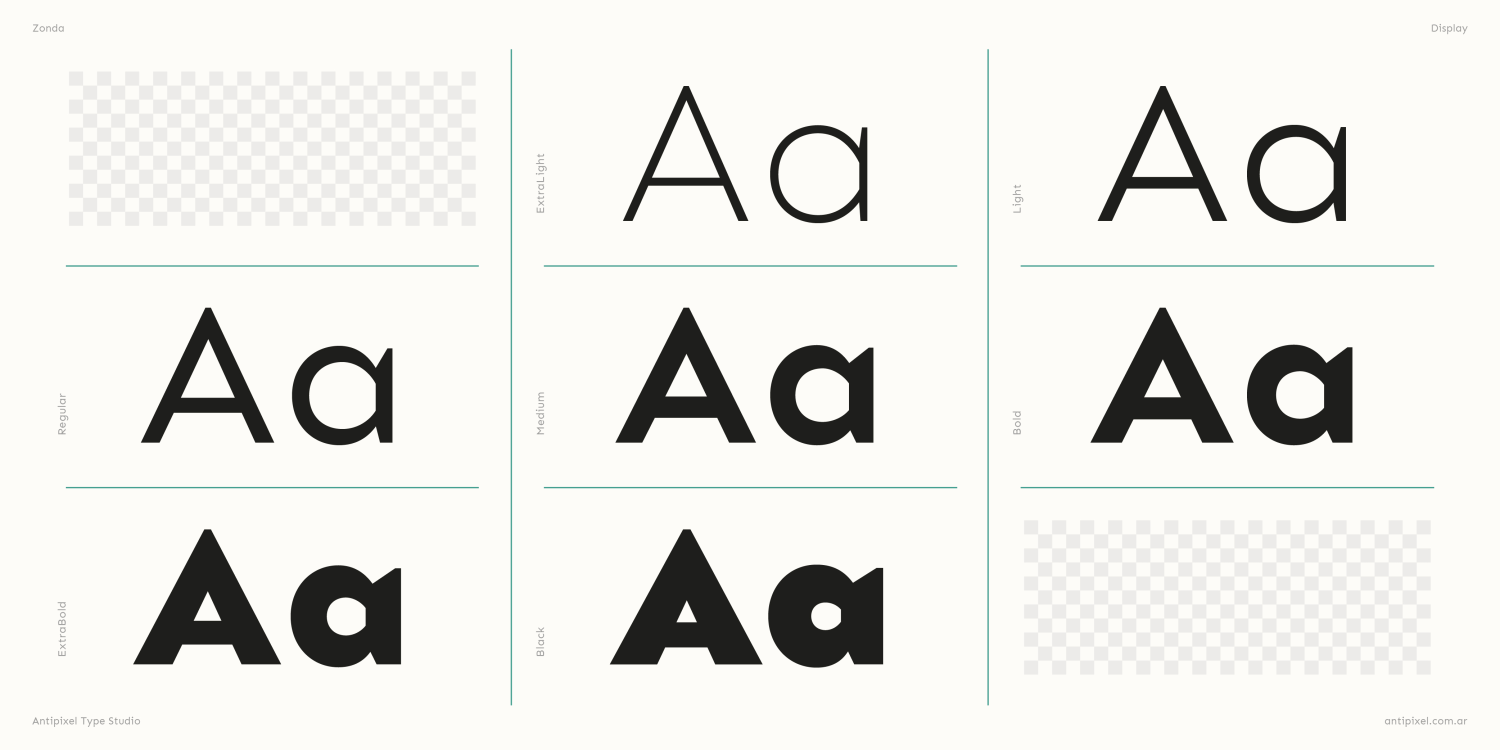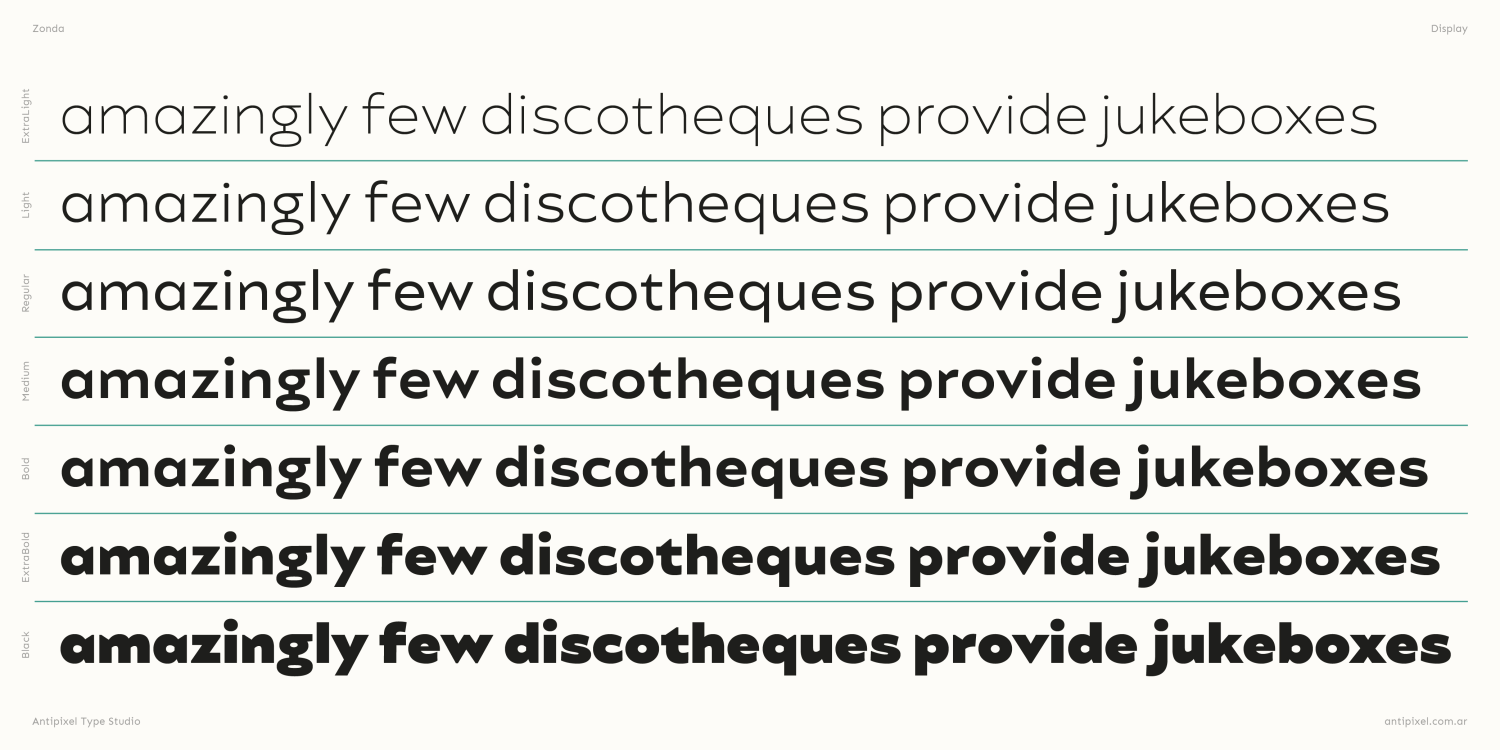
Zonda Bold
With its perfect blend of circular and triangular forms, Zonda stands out with the geometry of its sharp diagonals, squares, and fat round curves. It is solid and robust, yet delicate. The typeface's minor weight contrast adds a touch of sophistication, enhancing readability while maintaining a bold presence, and ensuring your message is conveyed with both power and grace.
Moderately wide in structure, Zonda is crafted for clarity and quality, making it ideal for headlines, big and medium settings, while also suitable for smaller sizes.
Designed to make an impact across multiple languages, Zonda offers extensive glyph support, making it a perfect choice for global brands. Some of its OpenType features are Stylistic Alternates, Stylistic Sets, Case Sensitive glyphs, and more.
Includes:
- ExtraLight, Light, Regular, Medium, Bold, ExtraBold, Black (uppercase & lowercase)
- Numbers, punctuation, ligatures, case-sensitive characters, and more!
- 216 languages supported
- Language Support: Western Europe, Central/Eastern Europe, South American, Vietnamese, Baltic, Turkish, Romanian, Esperanto.